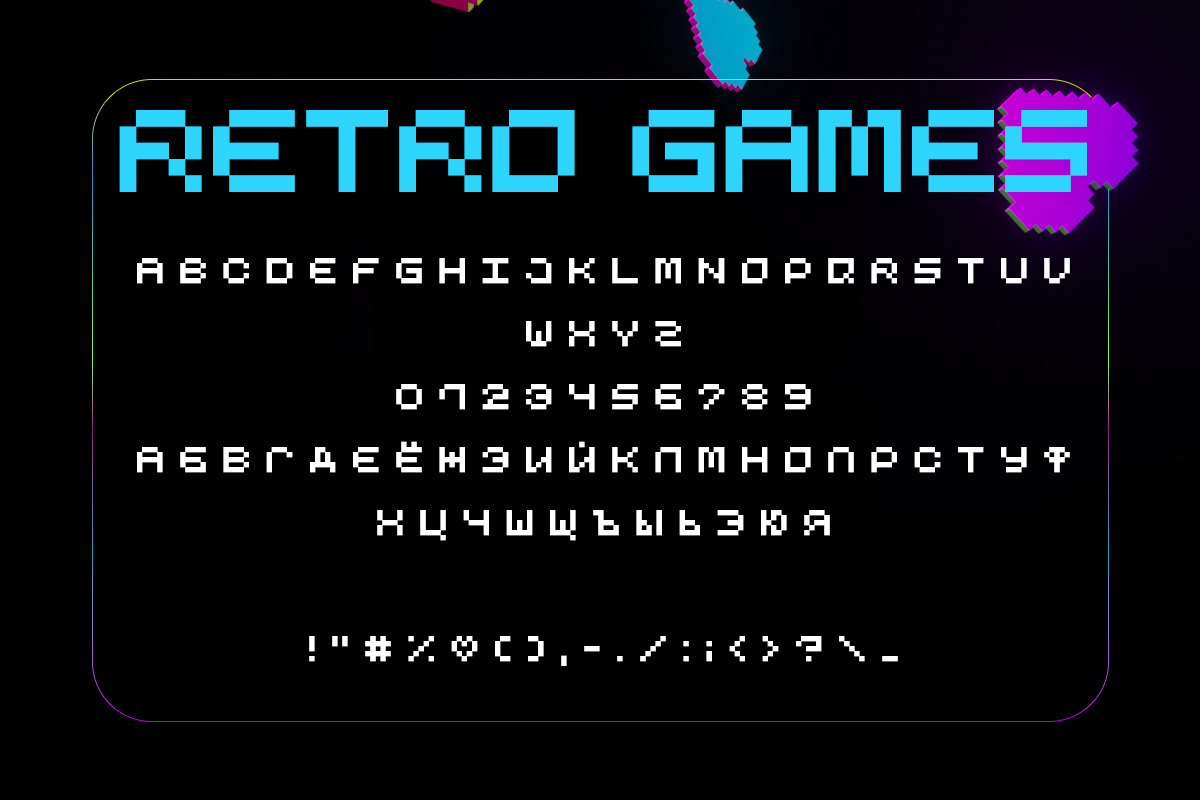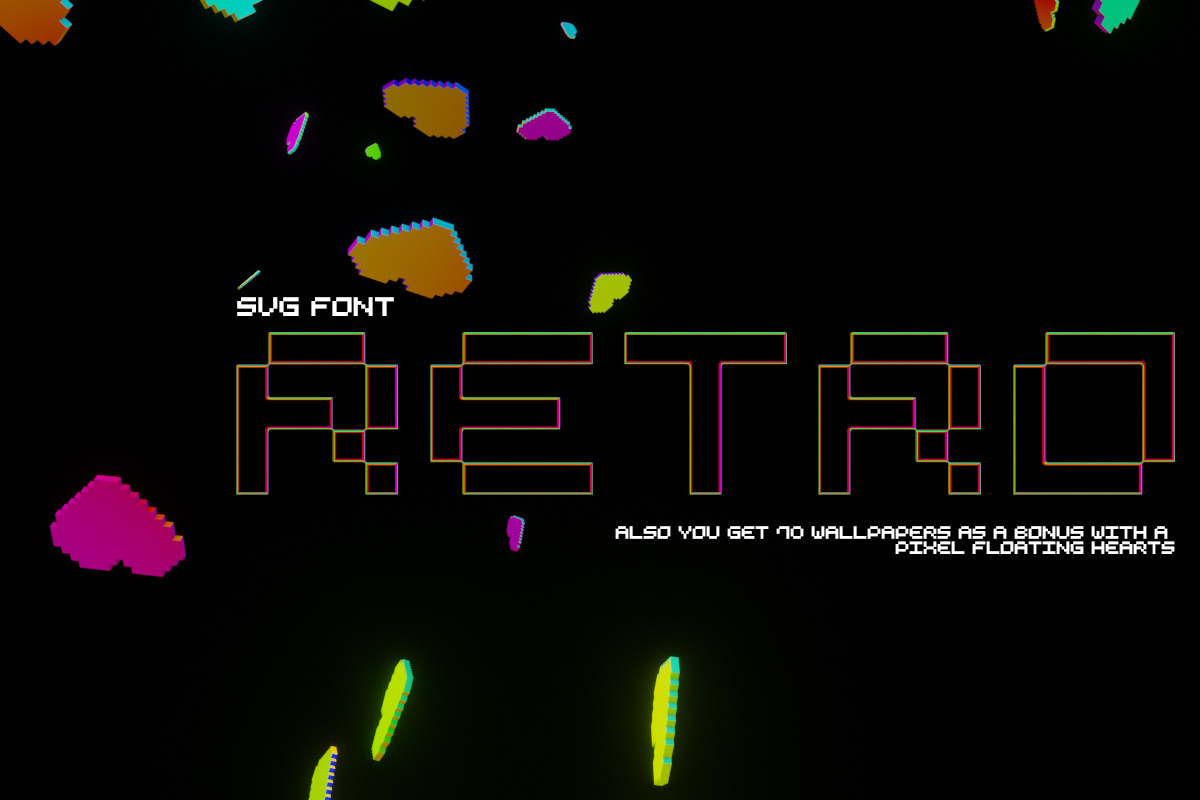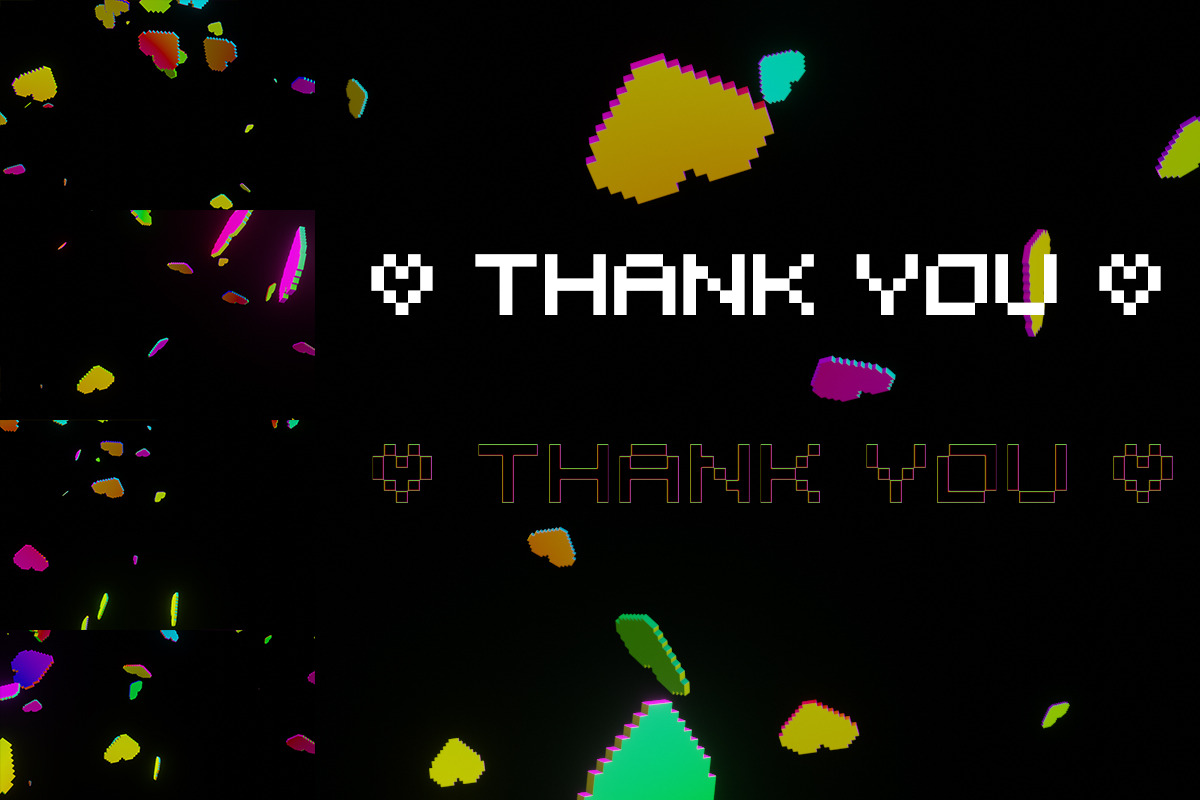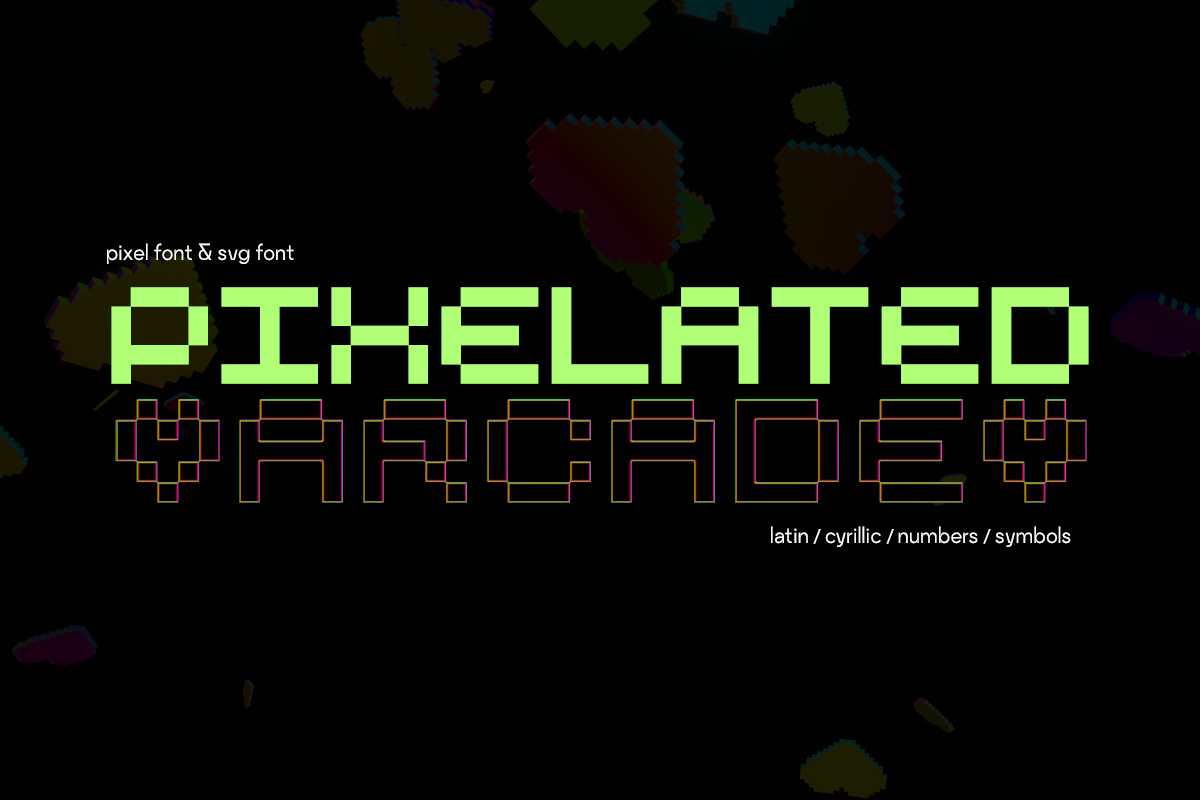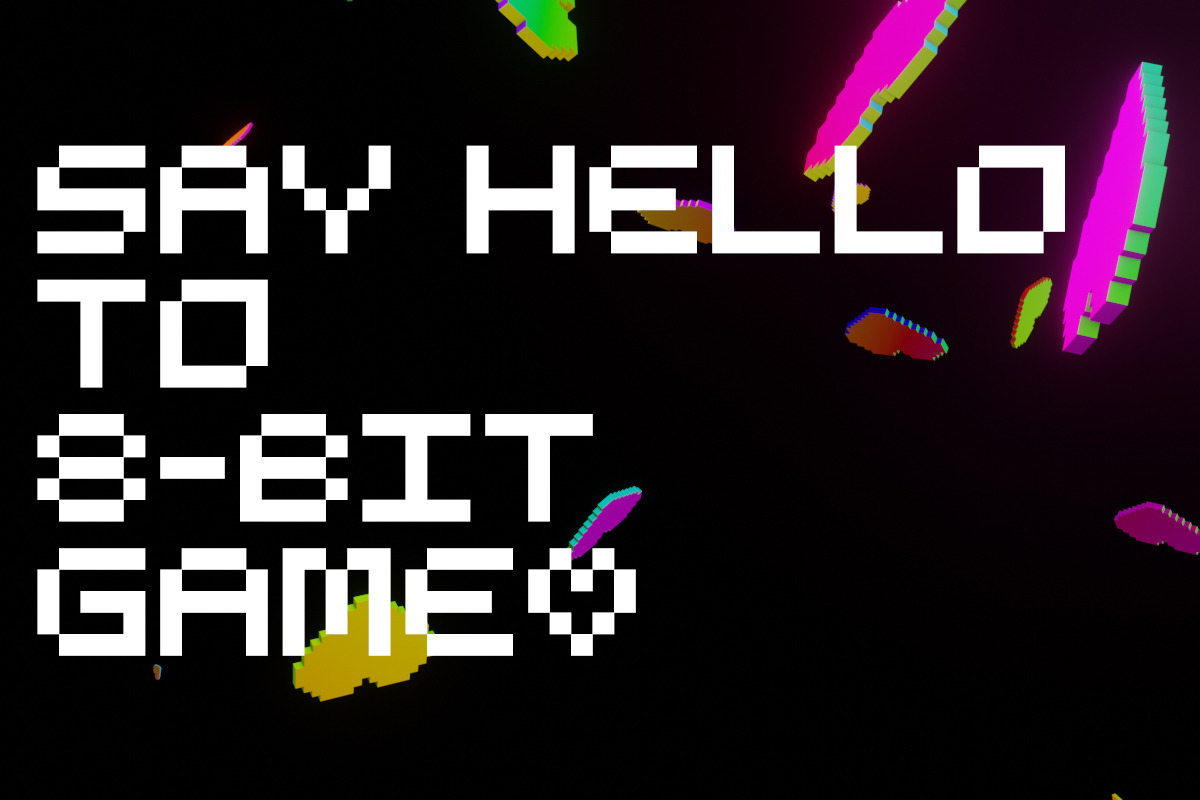
Pixelated Arcade - Typeface SVG&PNG
Introducing Pixelated Arcade!
Dive into nostalgia with our latest creation, Pixelated Arcade Typeface! Inspired by the golden era of retro arcade games, this font will transport you straight back to the neon-lit gaming halls.Perfectly capturing the essence of vintage gaming, Pixelated Arcade Font combines pixel precision with modern readability.
Not just limited to Latin, Pixelated Arcade Font supports multiple languages, including Latin and Cyrillic scripts, numbers, and a wide array of symbols. Whether you're crafting a retro-inspired design, working on a gaming project, or simply want to add a touch of nostalgia to your creations, this font has got you covered.